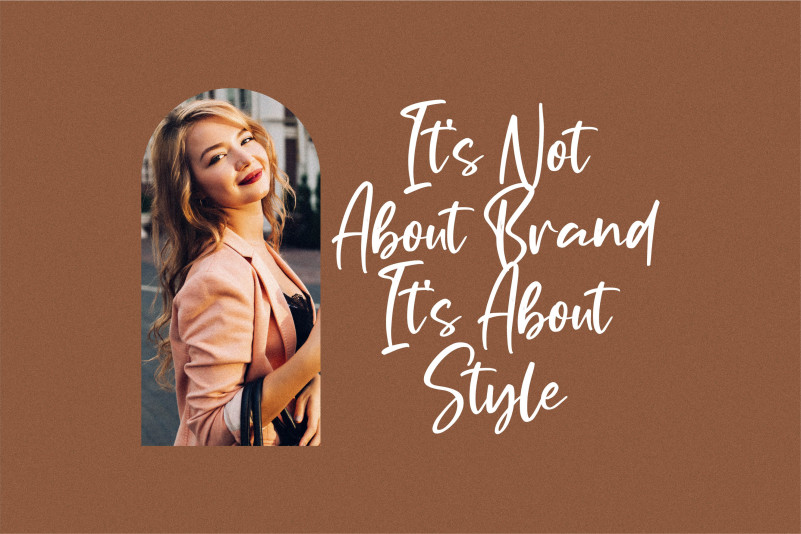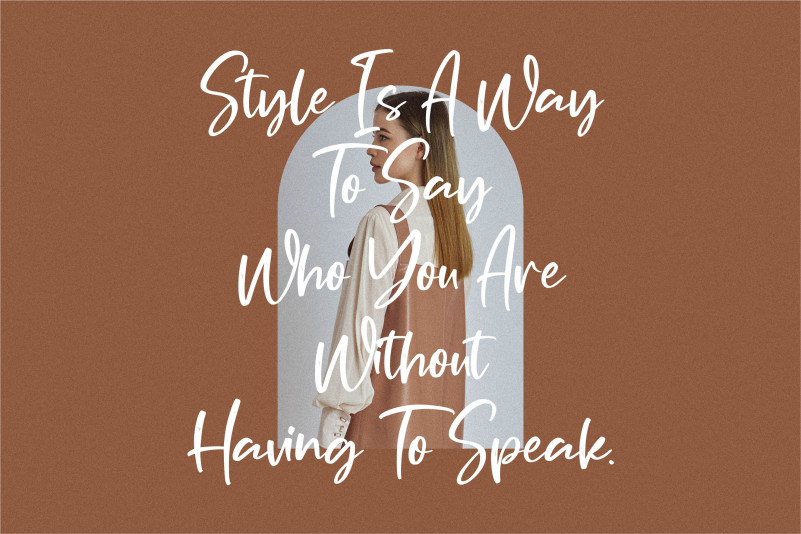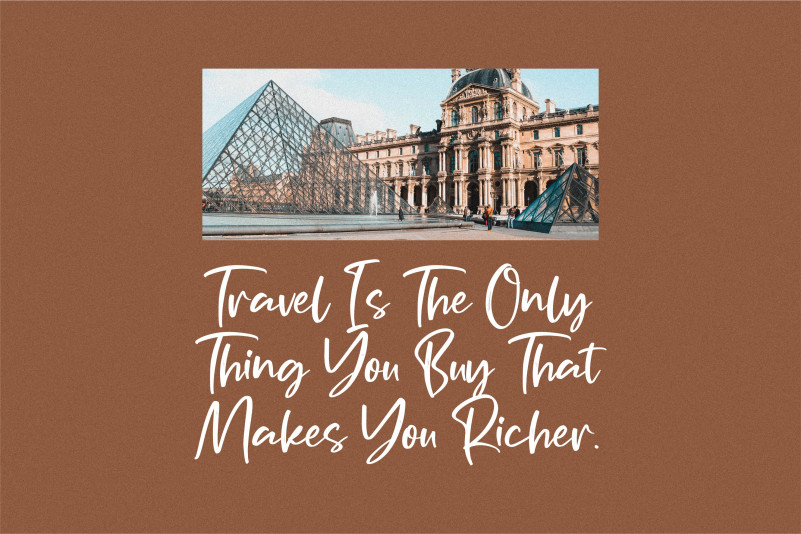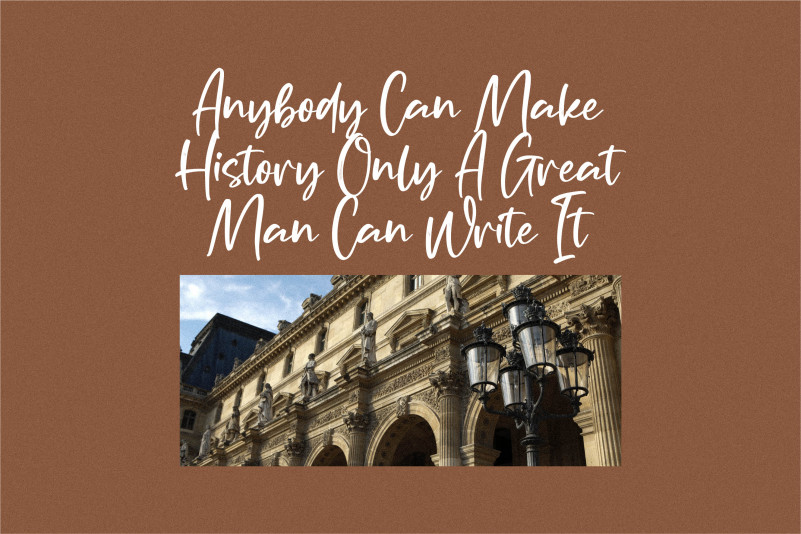
Portofolio Brilliant Font
Portofolio Brilliant Script Font
This is a lovely and delicate script font that exudes elegance and class. This font was particularly crafted for those who need a beautiful and refreshing look to their designs.